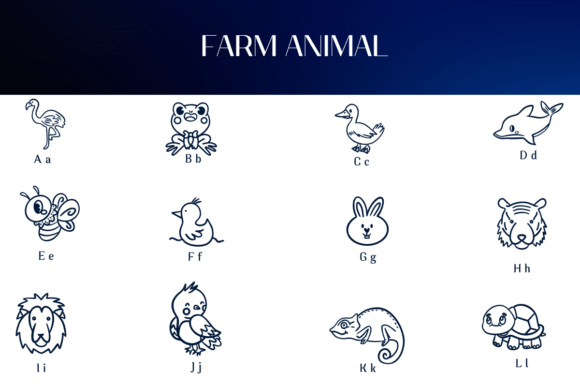
Farm Animal Font: A Fun and Creative Dingbats Font for Your Designs
Are you looking for a unique and playful font to add some personality to your designs? Look no further than the Farm Animal Font! This dingbats font is perfect for a variety of projects, from taking notes and writing a diary to making greeting cards and more. In this article, we’ll explore the features and benefits of the Farm Animal Font, as well as provide some creative ideas for using it in your designs.
What is Farm Animal Font?
Farm Animal Font is a dingbats font that features a collection of adorable farm animals, including cows, pigs, chickens, and more. The font is designed to be fun and playful, making it perfect for projects that require a lighthearted touch. Each character in the font is carefully crafted to be easily recognizable, making it easy to use and read.
Uses for Farm Animal Font
Farm Animal Font is a versatile font that can be used for a wide range of projects. Here are some ideas to get you started:
- Note-taking and journaling: Add some personality to your notes and journal entries with Farm Animal Font. Use it to highlight important points or to create fun and colorful headings.
- Greeting cards: Create adorable greeting cards for birthdays, holidays, and other special occasions using Farm Animal Font.
- Banners and signs: Use Farm Animal Font to create eye-catching banners and signs for events, parties, and more.
- Social media posts: Add some fun and personality to your social media posts with Farm Animal Font. Use it to create engaging headings and graphics.
- Mugs and water bottles: Create fun and colorful designs for mugs and water bottles using Farm Animal Font.
- Shirts and apparel: Use Farm Animal Font to create adorable designs for shirts, hats, and other apparel.
- Stationery and paper goods: Add some personality to your stationery and paper goods, such as notebooks, stickers, and more, with Farm Animal Font.
Benefits of Using Farm Animal Font
There are many benefits to using Farm Animal Font in your designs. Here are a few:
- Unique and playful: Farm Animal Font adds a unique and playful touch to your designs, making them stand out from the crowd.
- Easily recognizable: The characters in Farm Animal Font are easily recognizable, making it easy to use and read.
- Versatile: Farm Animal Font can be used for a wide range of projects, from notes and journals to greeting cards and more.
- Fun and engaging: Farm Animal Font is perfect for projects that require a lighthearted and fun touch, such as children’s party invitations or social media posts.
Tips for Using Farm Animal Font
Here are some tips for using Farm Animal Font in your designs:
- Use it sparingly: Farm Animal Font is best used sparingly to add a touch of personality to your designs. Avoid overusing it, as it can become overwhelming.
- Mix and match: Experiment with mixing and matching Farm Animal Font with other fonts to create a unique and interesting look.
- Keep it simple: Keep your designs simple and clean to let Farm Animal Font shine.
- Have fun: Most importantly, have fun with Farm Animal Font! It’s a playful font that’s meant to bring a smile to your face.
Farm Animal Font is a fun and creative dingbats font that’s perfect for adding a playful touch to your designs. With its easily recognizable characters and versatile uses, it’s a great addition to any designer’s toolkit. Whether you’re creating notes, greeting cards, or social media posts, Farm Animal Font is sure to bring a smile to your face and personality to your designs.